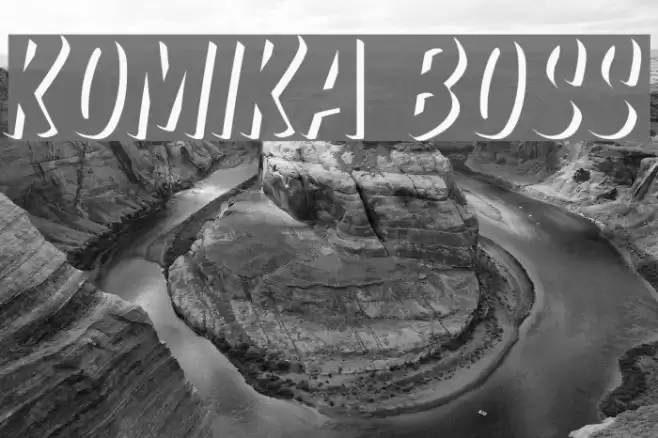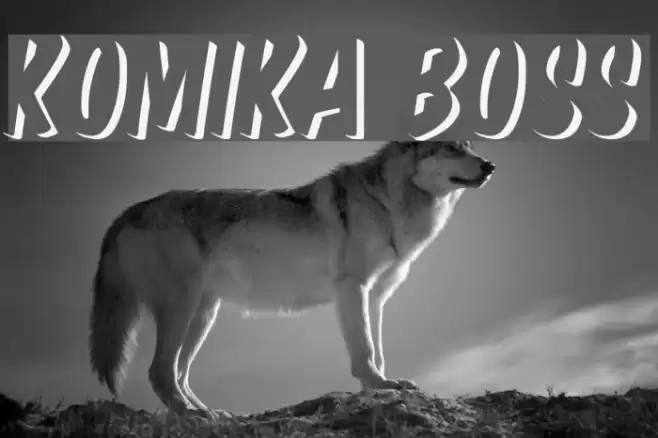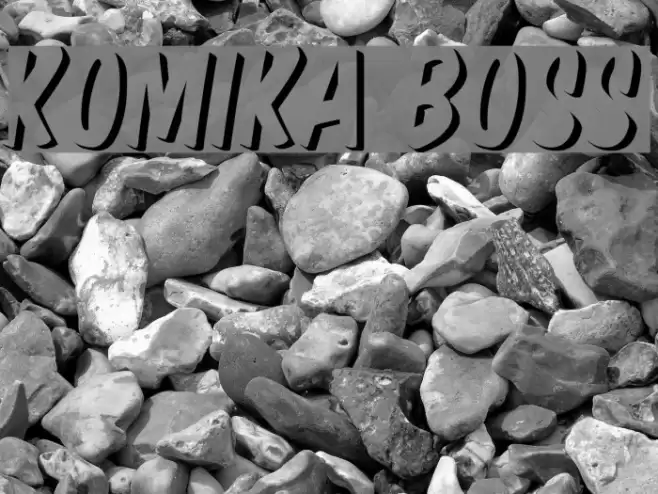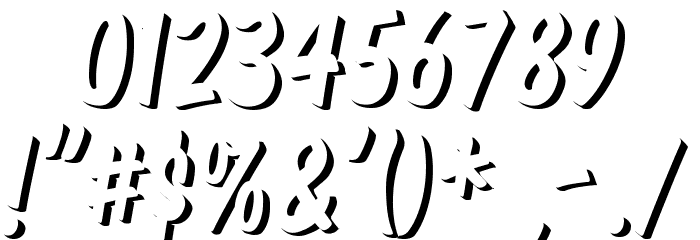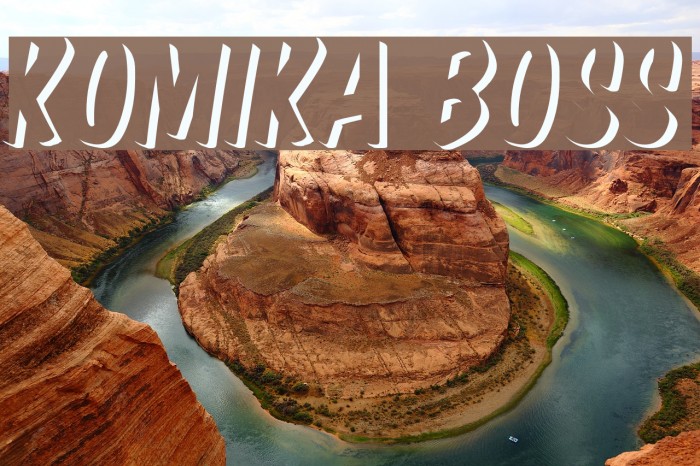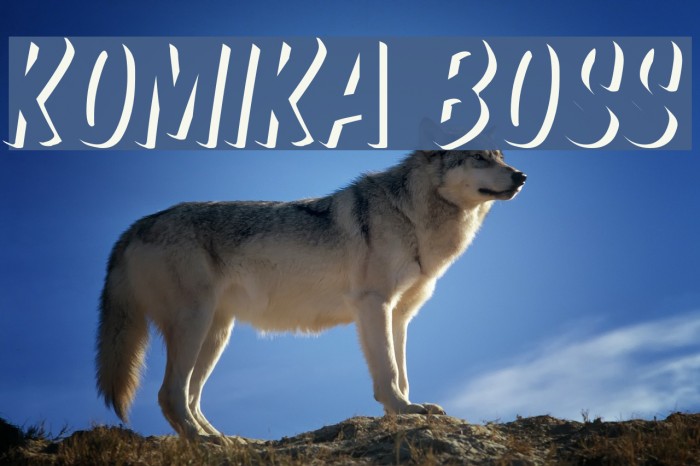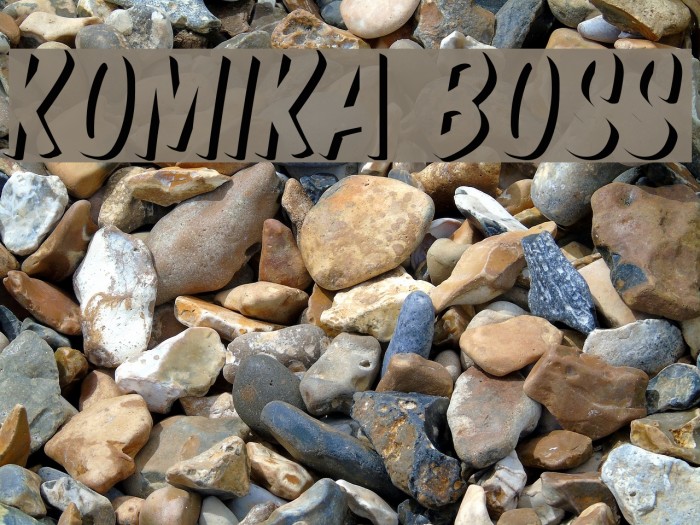
Komika Boss Font
Komika Boss Description
This font features a bold and dynamic style with a strong presence. The characters are slightly slanted, giving a sense of movement and energy. Each letter is outlined with a shadow effect, enhancing its three-dimensional appearance. The strokes are thick and consistent, providing a robust and impactful look. The font is well-suited for attention-grabbing designs, with its playful yet assertive character shapes. The overall design is clean, with a modern twist that makes it versatile for various creative applications.
A bold, dynamic font with a slanted, shadowed style from Uncategorized fonts.
- Font: Komika Boss
- Proposed Projects: Ideal for comic books, posters, video game graphics, and branding that requires a bold statement.